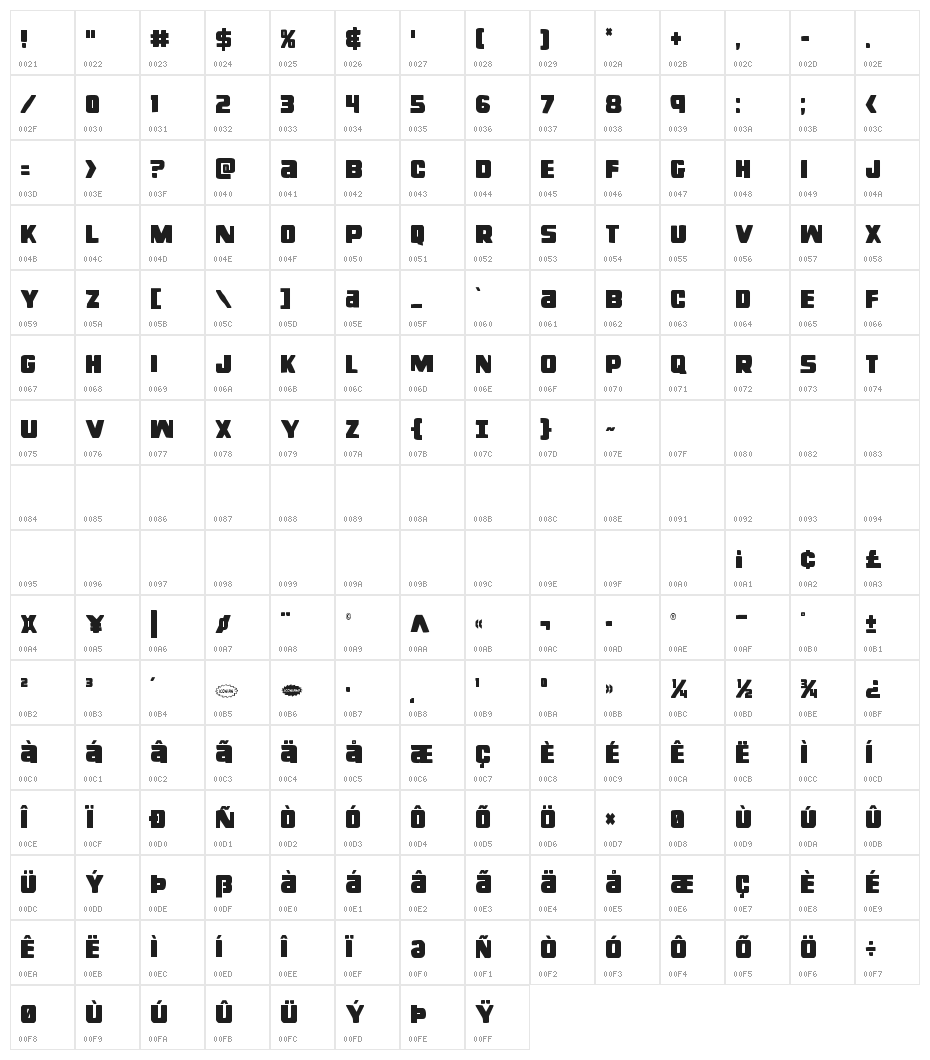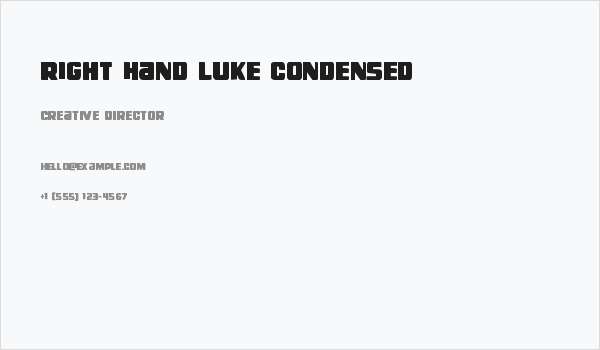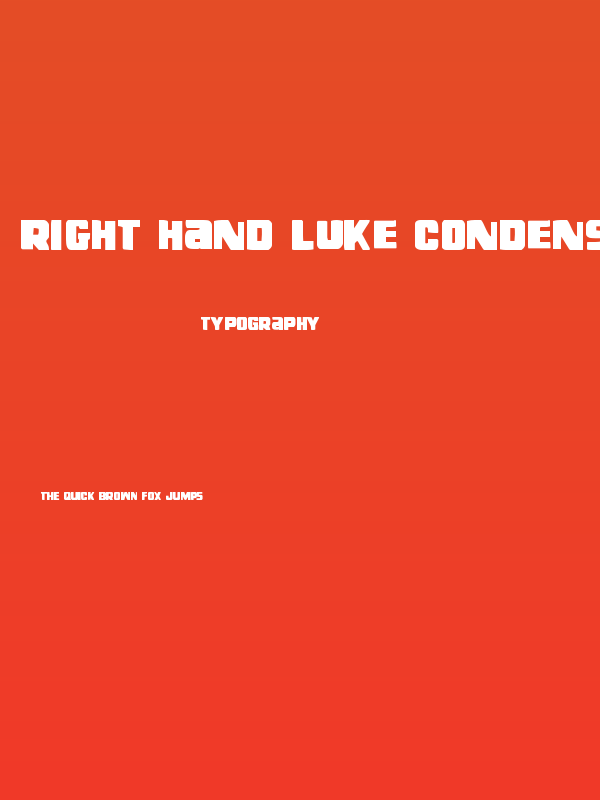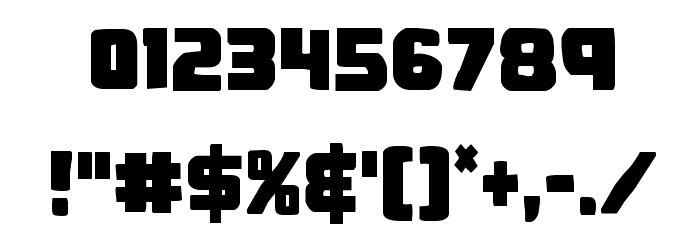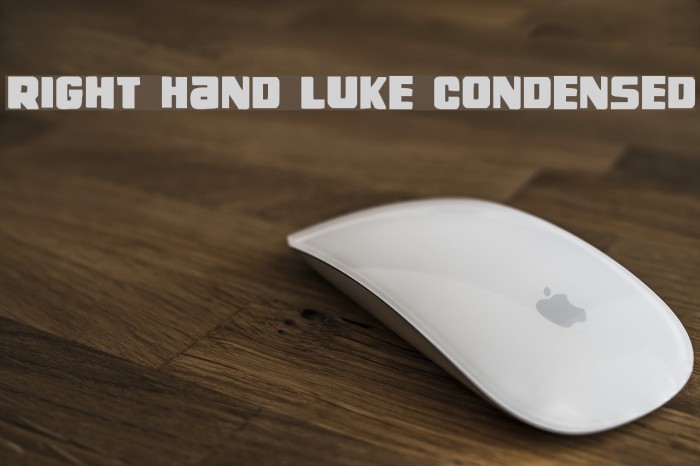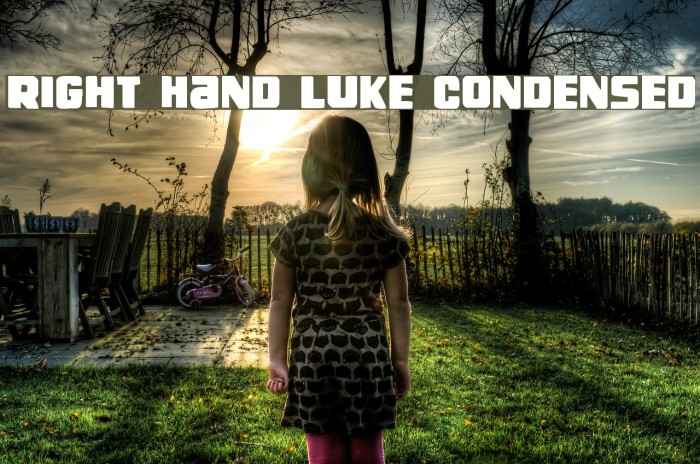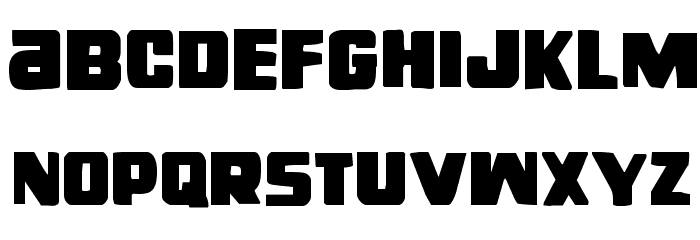
Right Hand Luke Condensed Font
Right Hand Luke Condensed Description
This font features a bold and condensed style with strong geometric shapes and a modern aesthetic. The uppercase and lowercase letters are uniform in width, creating a cohesive and structured appearance. The characters have a blocky, robust design with minimal curves, emphasizing straight lines and sharp angles. The numbers and special characters maintain this bold and compact style, ensuring consistency across all glyphs. This font is highly legible and impactful, making it suitable for attention-grabbing designs.